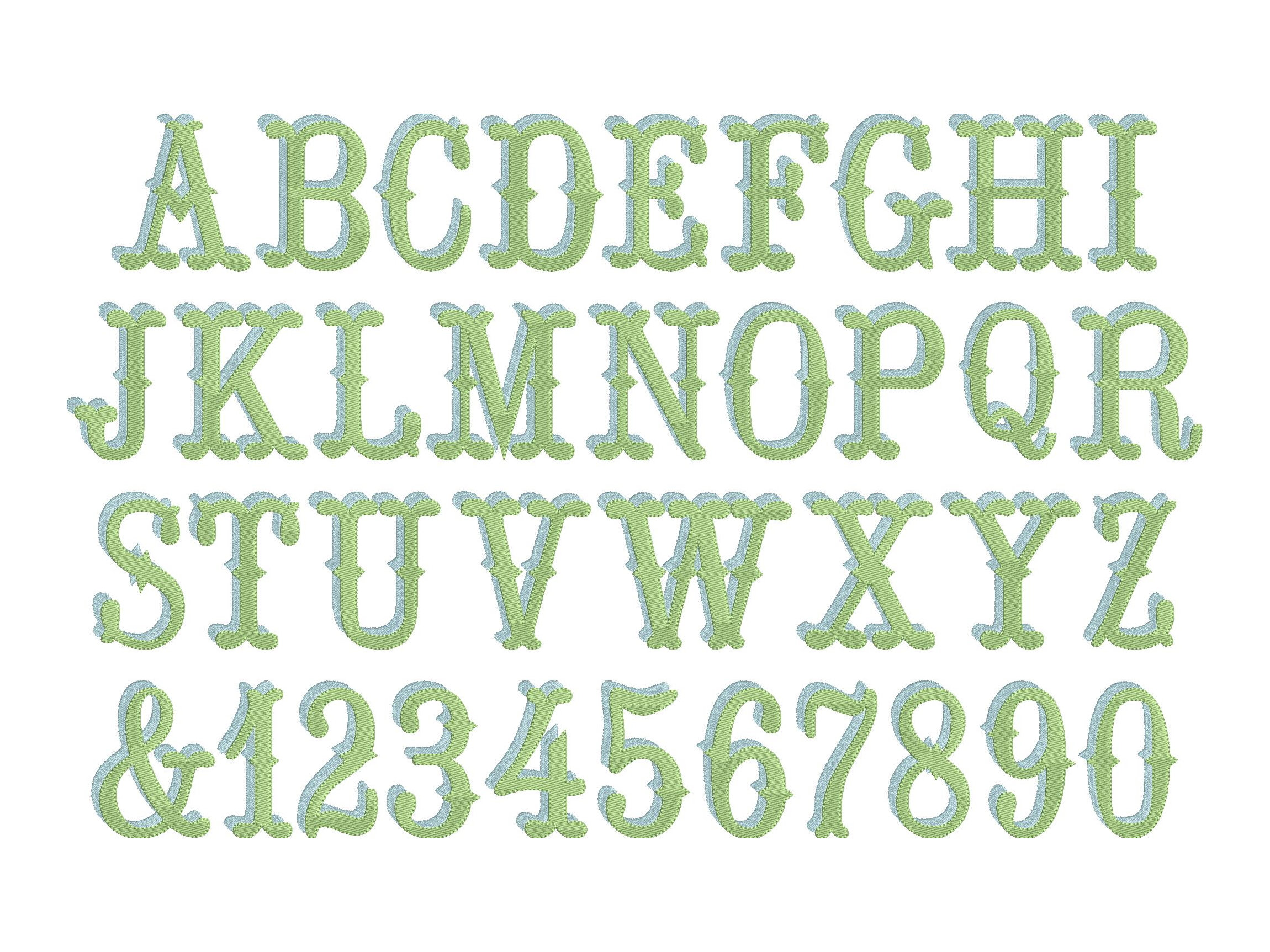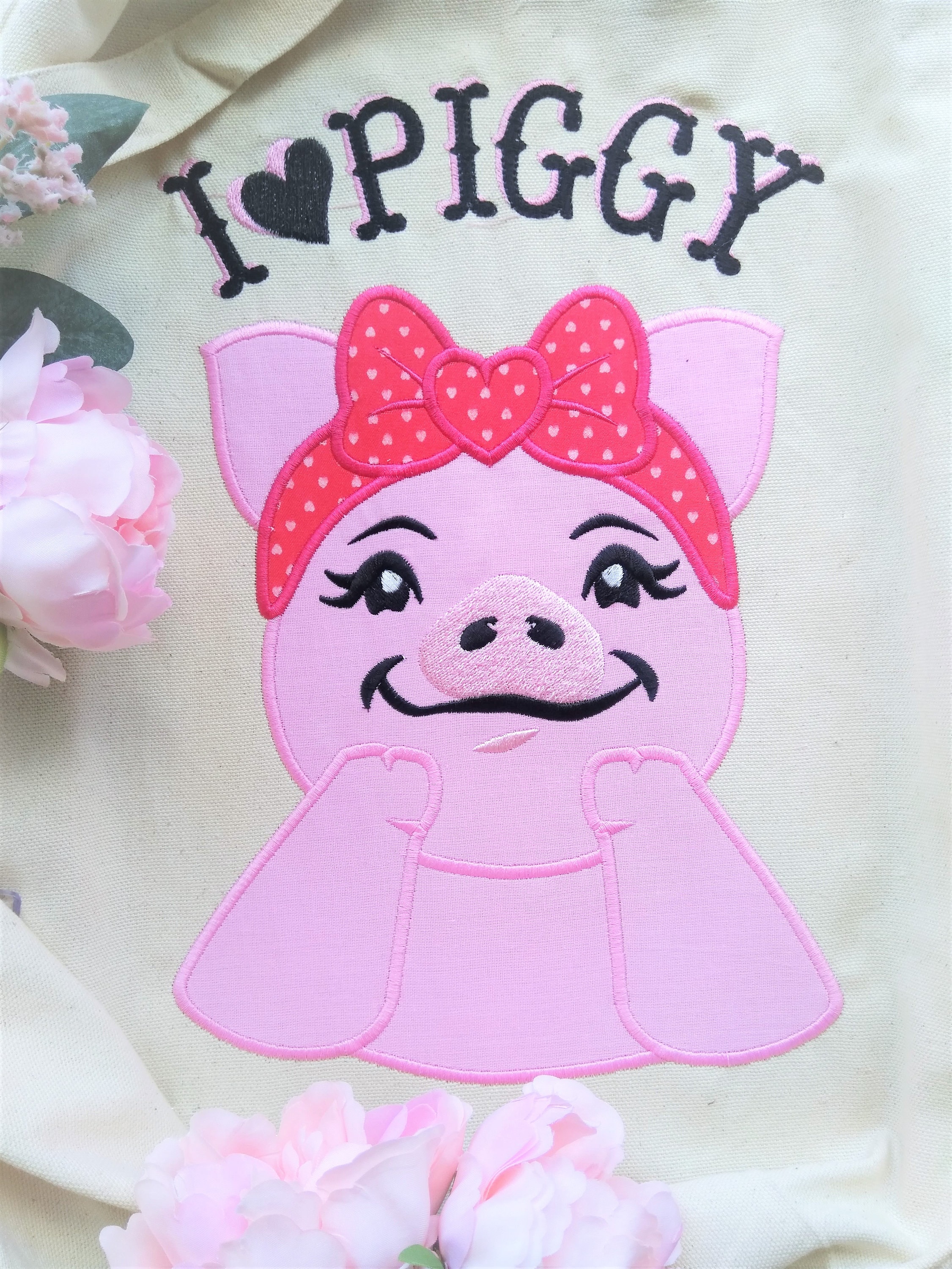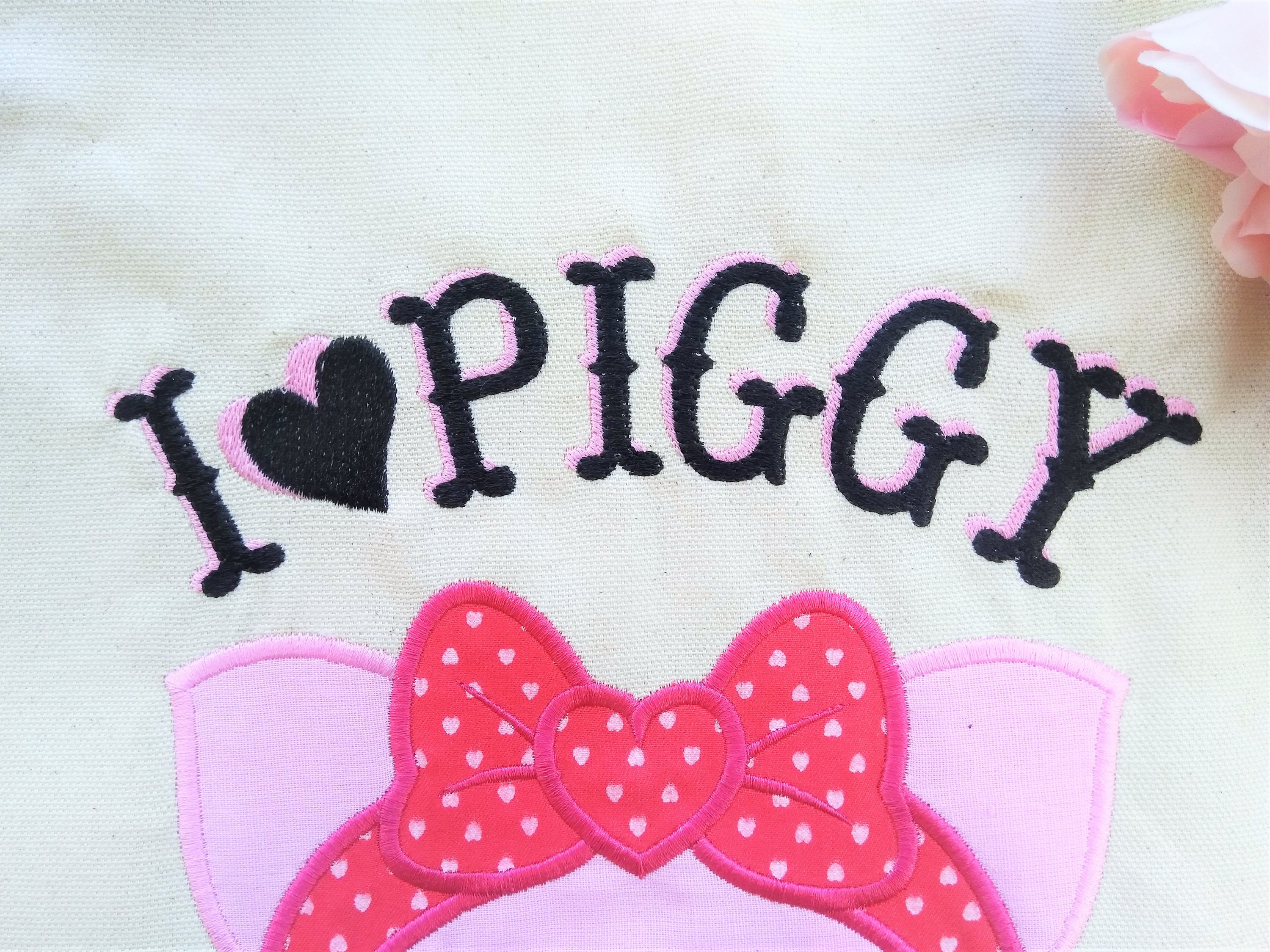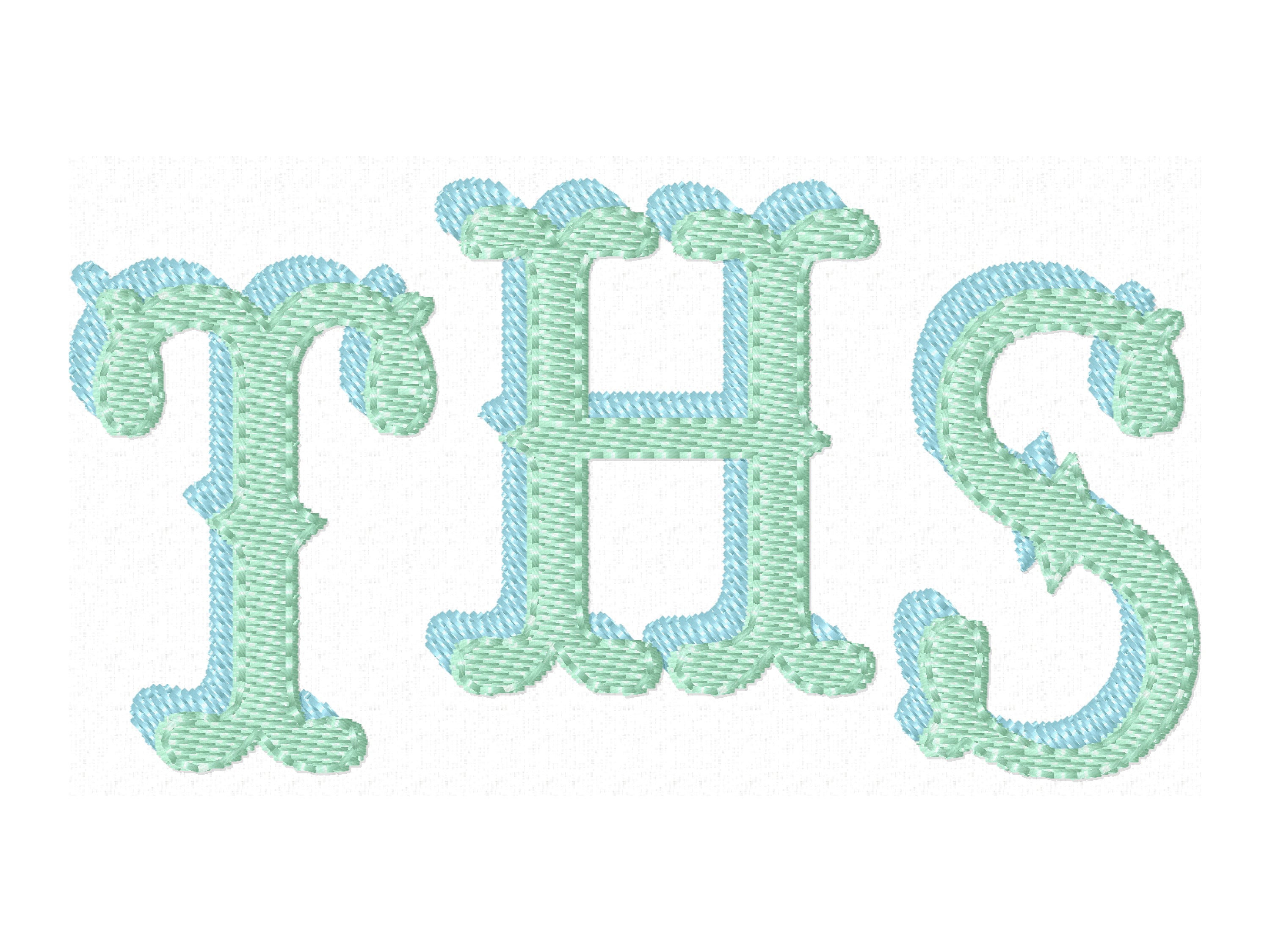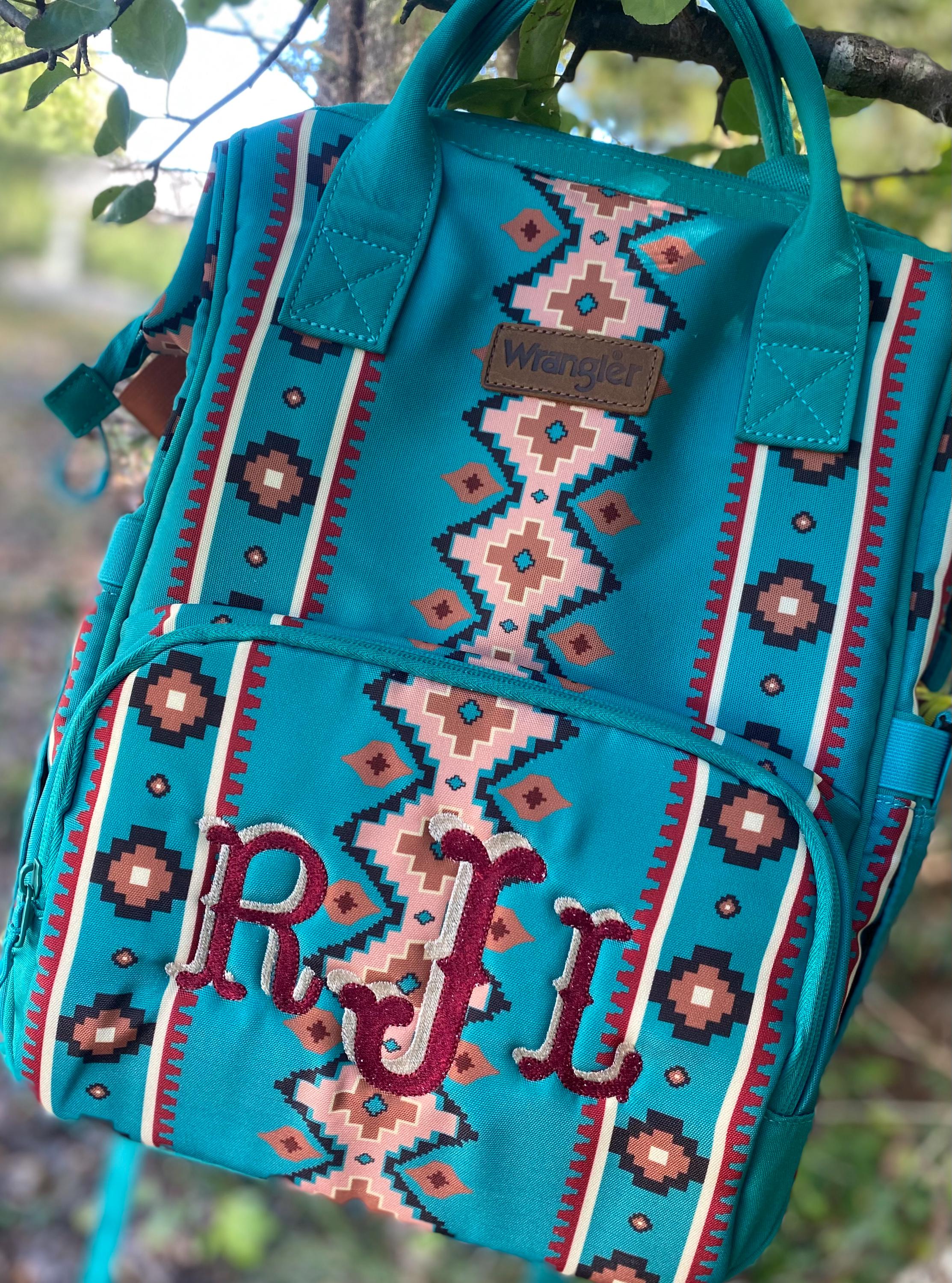
Monogram Font machine embroidery designs, western theme saloon shadow alphabet letters sizes from 1.5, 2, 2.5, 3, 3.5, 4in, BX included!
Uppercase, numbers and Ampersand